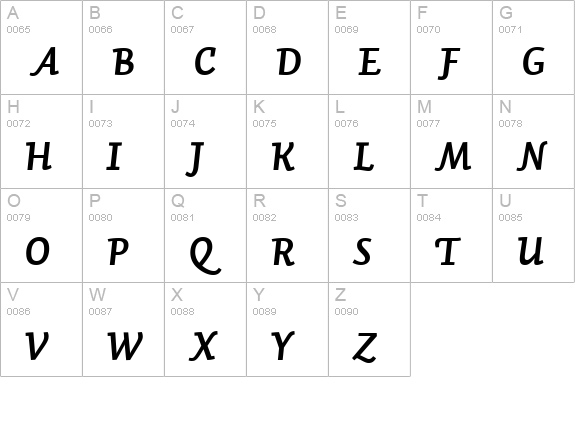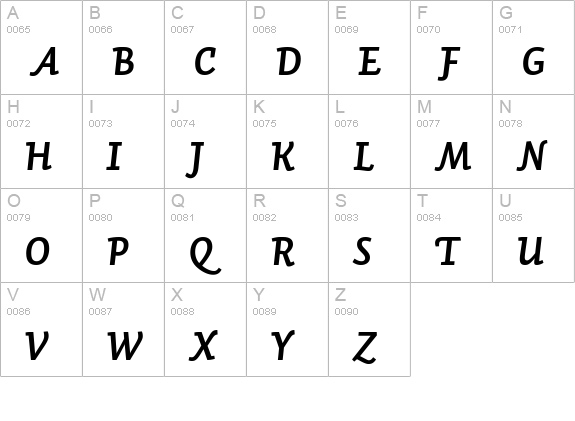
Auto 2 Bold Italic Font Details
Auto 2 Bold Italic is a strong, high-contrast, italic variant in the Auto typeface family \xE2\x80\x94 well suited to headlines, attention-grabbing titles, and strong calls-to-action.
Auto 2 Bold Italic font is a sleek and modern typeface that exudes confidence and style. Its bold and italic design adds a touch of sophistication to any project, making it perfect for headlines, titles, and branding. The strong, geometric shapes of this font make a bold statement while maintaining a sense of elegance. What's even better is that Auto 2 Bold Italic font is completely free to download at FontsMarket.com. This means you can enhance your designs with this striking typeface without having to worry about any extra costs. So go ahead and give your projects a professional edge with Auto 2 Bold Italic font today!